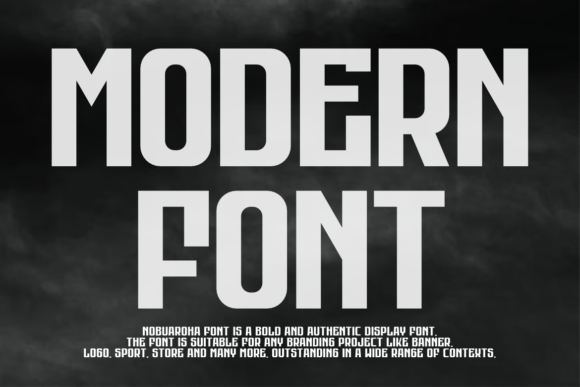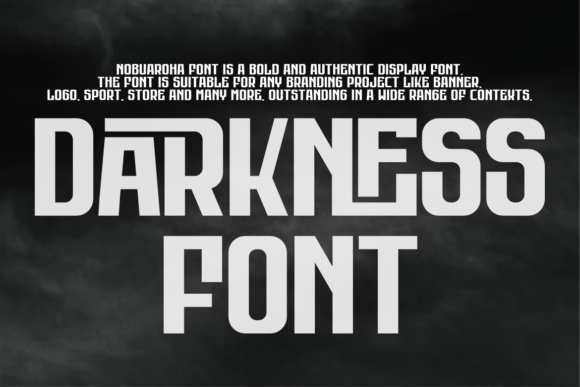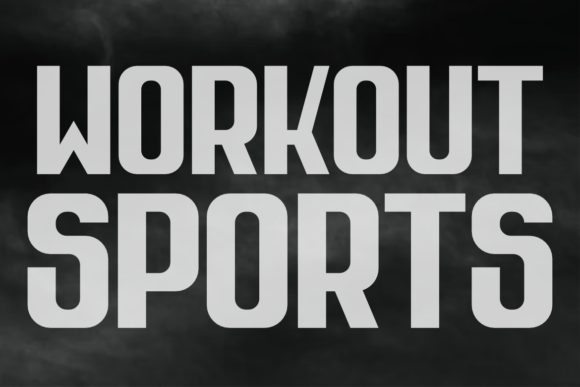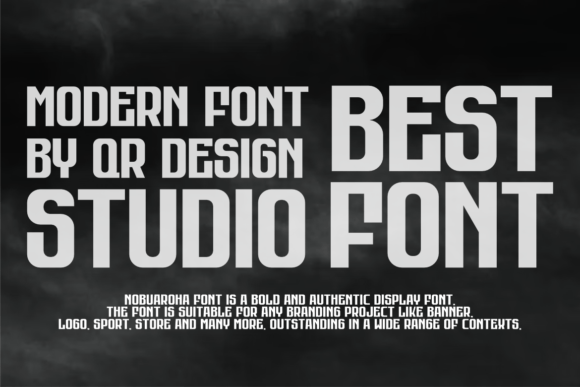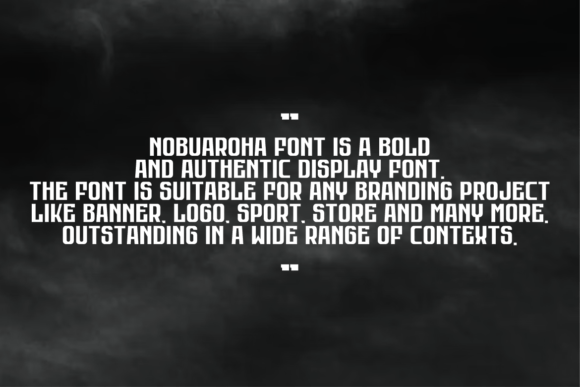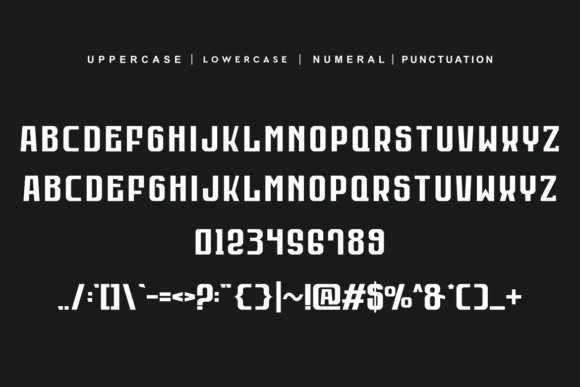
Introduction to Nobuaroha Font Font
Fonts play a crucial role in design, and the Nobuaroha Font font is a typeface that brings both character and versatility to any project. Whether you’re working on a branding project, a website, or a print design, the Nobuaroha Font font offers a unique style that can elevate your work.
| 📌 Font Name | Nobuaroha Font |
| 👤 Author | qrdesignstd |
Nobuaroha Font is a bold and authentic display font.
The font is suitable for any branding project like logo, sport, and many more Outstanding in a wide range of contexts.
Key Features of Nobuaroha Font Font
Why Choose Nobuaroha Font Font?
The Nobuaroha Font font is more than just a typeface – it’s a design tool that helps you communicate your message with style and clarity. Its unique character set and versatile design make it suitable for a wide range of applications, from elegant invitations to bold headlines.
With its carefully crafted letterforms and balanced proportions, the Nobuaroha Font font ensures readability and visual appeal across all mediums.
What makes Nobuaroha Font font special?
The Nobuaroha Font font stands out with its unique design, exceptional readability, and versatility across various design applications.